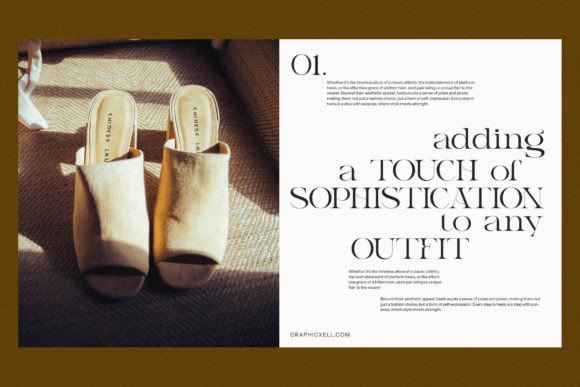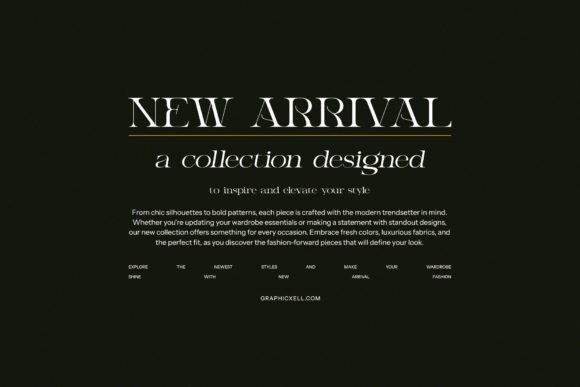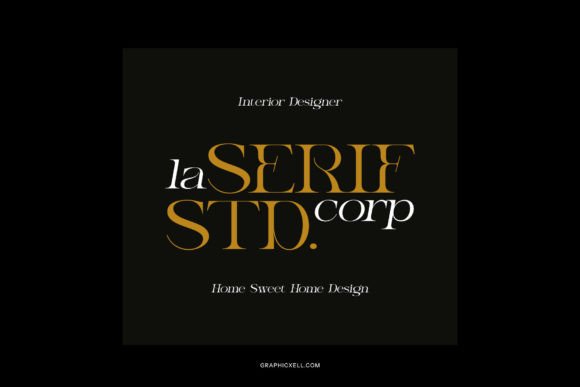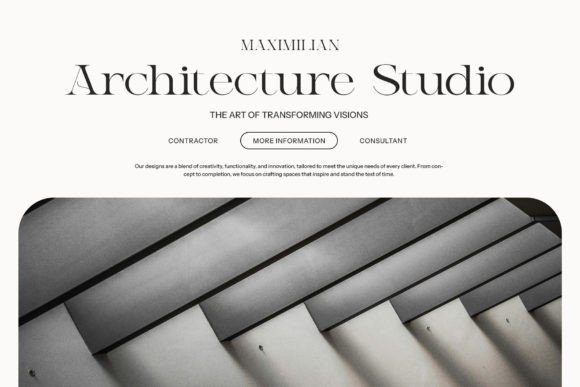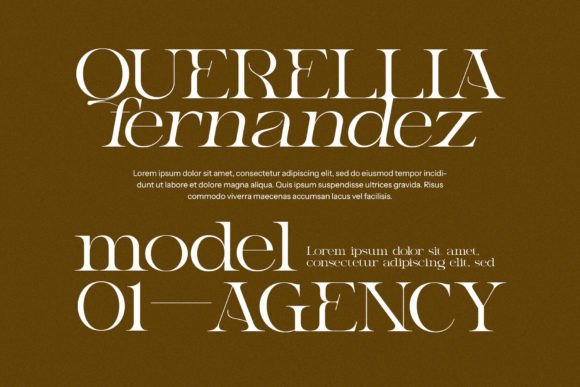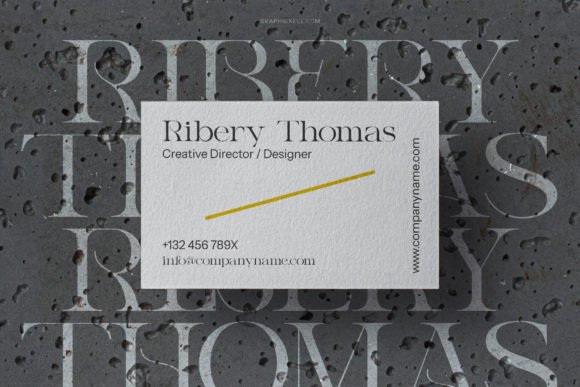
The Perfect Font for the Modern Designer
Have you ever stared at a blank page, struggling to find the right words to express your creative vision? You know the feeling – a mix of excitement and frustration. But what if you had the perfect tool to bring your ideas to life? Enter the Balme Font, a modern serif typeface that combines elegance with classic letter shapes.
The Balme Font is more than just a pretty face – it’s a versatile solution for designers looking to create a polished and sophisticated look in logos, headlines, and designs. Whether you’re working on a digital project or a print piece, this font is sure to elevate your work and make it stand out. As a designer, having the right font in your arsenal can make all the difference in bringing your creative vision to life.
Balme Font Key Features
- Unique Characteristics: Balme Font boasts a distinctive, elegant design with subtle nuances in letterforms, making it ideal for use in high-end branding, advertising, and editorial content.
- Language Support: The font supports a wide range of languages, including Latin, Cyrillic, and Greek alphabets, making it a versatile choice for global applications.
- Font Weight and Style: Balme Font is available in multiple weights and styles, including Light, Regular, Bold, and Italic, allowing designers to achieve the desired level of emphasis and sophistication.
- Scalability: The font is designed to be highly scalable, ensuring that it looks great in various sizes and resolutions, from small text to large headlines.
Review of Balme Font
Overall, I found Balme Font to be a unique and creative choice for designers looking to add a touch of elegance to their projects.
- The font’s clean lines and modern aesthetic make it perfect for digital interfaces and publications.
- The bold and italic styles are well-designed and easy to read, making them great for headings and emphasis.
- The font’s weight and spacing are well-balanced, making it easy to use in both body text and display text.
- The font’s limited character set and lack of support for certain languages may be a hindrance for designers working on multilingual projects.
- The font’s thin lines may not be suitable for small text sizes or low-resolution displays.
Overall, I think Balme Font is a solid choice for designers looking to add a touch of sophistication to their projects. While it may have some limitations, its unique design and well-balanced weight and spacing make it a great addition to any designer’s toolkit.
For best results, use Balme Font in conjunction with a clean and simple design aesthetic.
For best results, use Balme Font in conjunction with a bold and modern design aesthetic.
For best results, use Balme Font in conjunction with a clean and simple design aesthetic.
Some common use cases for Balme Font include:
– Creating modern and minimalist logos and branding materials
– Designing clean and simple websites and landing pages
– Creating headings and titles for business reports and presentations
Remember to experiment with different font sizes, colors, and styles to get the most out of Balme Font.
Alternatives to Balme Font
Montserrat is a popular sans-serif font that works well for digital interfaces, headings, and body text. It’s designed to be clean and modern, making it an excellent choice for contemporary designs. Compared to Balme Font, Montserrat is more versatile and has a wider range of styles, including condensed and narrow variants.
Inter is a modern sans-serif font that’s designed for digital use. It’s highly legible and works well for body text, headings, and captions. Compared to Balme Font, Inter is more modern and has a sleeker design, making it an excellent choice for contemporary designs that require a clean and minimal look.
Open Sans is a clean and modern sans-serif font that’s highly legible. It’s designed for digital use and works well for body text, headings, and captions. Compared to Balme Font, Open Sans is more traditional and has a softer design, making it an excellent choice for designs that require a friendly and approachable tone.